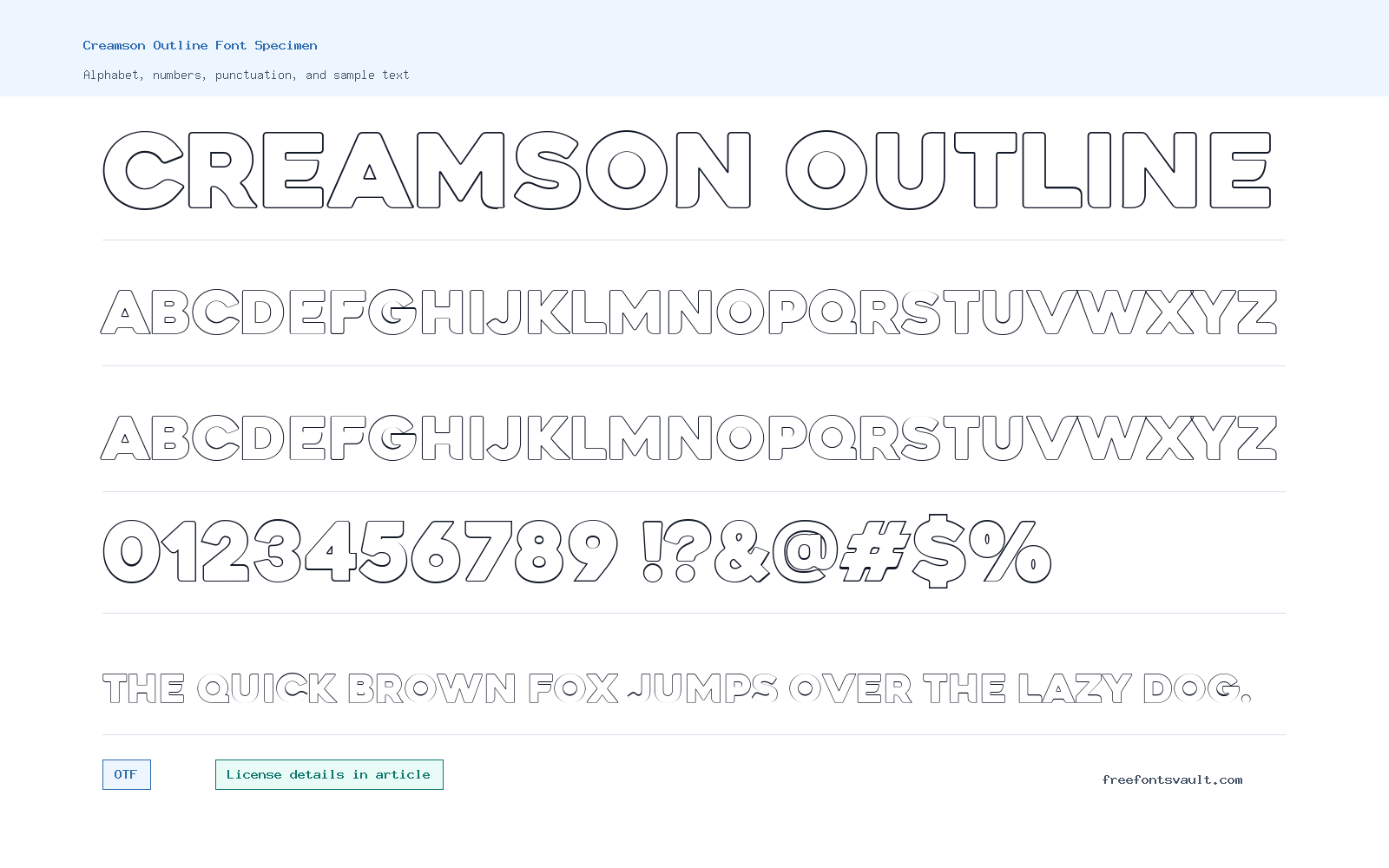
Creamson Outline
Creamson Outline font.
Creamson Outline is a bold outline display font with geometric letter shapes and rounded edges, made for short text that needs a clean, high-impact look.
About Creamson Outline
Creamson Outline is the outlined style from the Creamson font family by The Branded Quotes. It uses all-capital sans serif lettering with a clean geometric structure, giving headlines a strong shape without the weight of a filled block font. The outline treatment makes it useful when you want large text to feel open, airy, or layered over photos, color blocks, and poster backgrounds.
Use Creamson Outline for display work rather than reading text. It can work well for logo drafts, posters, fashion graphics, packaging mockups, event titles, social media covers, album-style artwork, and decorative headlines. Because the letters are outlined, test your words at the exact size you plan to use. Thin outlines can lose clarity at small sizes, busy backgrounds may reduce contrast, and long paragraphs will be harder to read than with a regular text font.
- Outline version of the Creamson sans serif display family
- Geometric all-capital display look with rounded edges
- Best suited to short headlines, titles, and graphic layouts
- Sources list Creamson with regular and outline styles
- Logo concepts and brand mockups
- Fashion and lifestyle social posts
- Packaging mockups and label-style designs
- Album covers, banners, and decorative headings
For the best preview, try short uppercase words, wide spacing, and high-contrast colors. Avoid using the outline style for small captions, body copy, or text placed over detailed images unless the background is softened or the outline is thick enough to stay readable. Outline fonts need contrast to stay readable. Use Creamson Outline over clean backgrounds, avoid very small sizes, and consider pairing it with the filled Creamson style or a simple sans serif when a design also needs paragraphs or product details.
What kind of font is Creamson Outline?
It is an outline display style from the Creamson sans serif family. It has bold geometric letter shapes and is intended for short, eye-catching text.
Is Creamson Outline good for body text?
No. It is better for titles, posters, social graphics, and other display use. For paragraphs or small text, use a simpler filled text font.
Who made Creamson Outline?